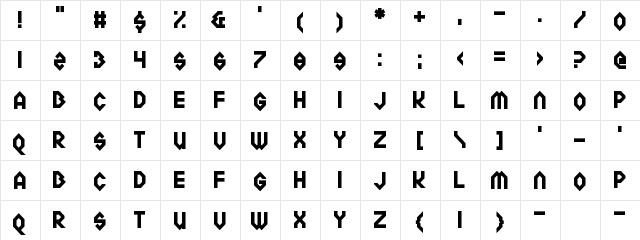
Meckablecka Regular
Design Context for Meckablecka Typeface
Meckablecka is a composed and adaptable typeface that performs quietly and consistently across a wide range of design contexts.